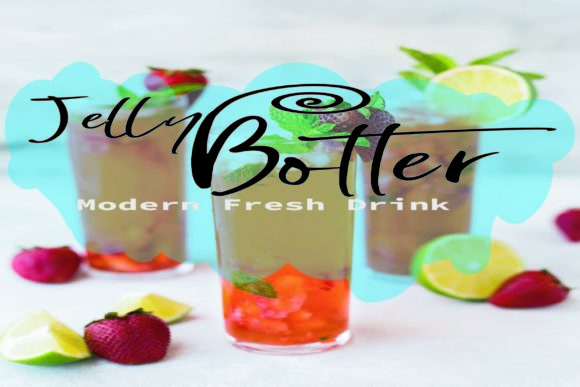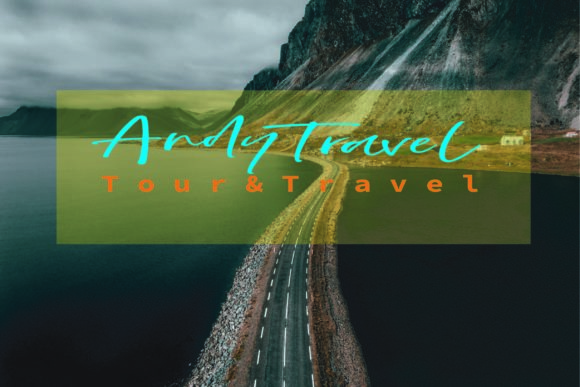
Antonella Font
db-ku.com - Script & Handwritten -- Antonella is a beautiful script and modern font combined with a sweet touch and beautifully curved letters, using a touch of soft curves so that it is pleasant to the eye.